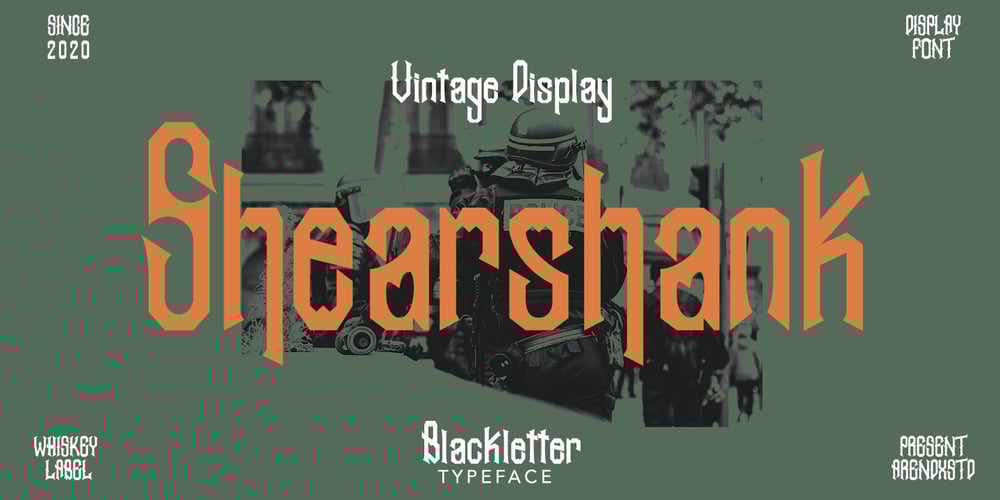
Shearshank Font Family was designed by Asep Rendi and published by Arendxstudio. Shearshank contains 1 styles and family package options. Shearshank is a gothic font that is very elegant and has unique characteristics for each character so it is suitable for your design needs and will add an elegant and frightening atmospheres.Shearshank comes with OpenType features such stylistic alternates, stylistic sets, and ligatures, which makes this great for logotype, posters, badges, book covers, t-shirt designs, packaging and any more.Features:-Uppercase & Lowercase-Multilingual support-Numbers-Symbols-Punctuation